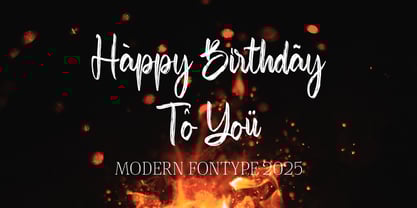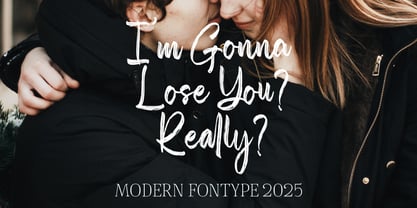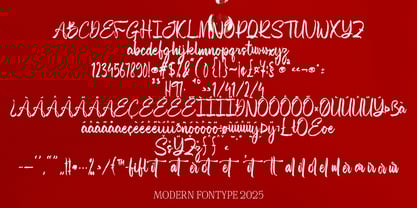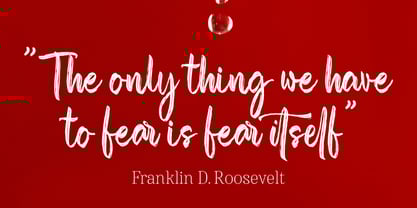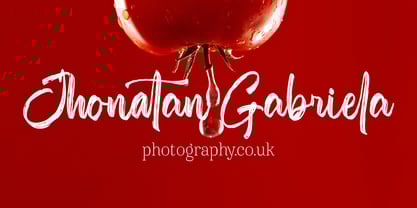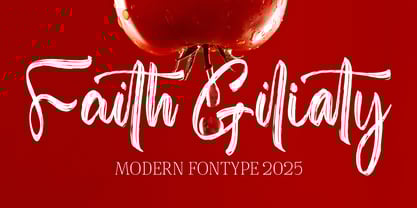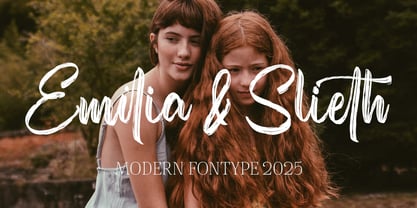
Faith Giliaty
by Naatypo
The Faith Giliaty Font Family was designed by Kurnia Elis Setyorini and published by Naatypo. Faith Giliaty contains 1 styles. More about this family
Faith Giliaty, A new rounded Bold on a script typefaces It generates a lot more fun, more trendy and Beauty. perfect for crafting, branding, Logo, invitation, stationery, wedding designs, social media posts, advertisements, product packaging, product designs, label, Posters, photography, special events, or anything.
Designers: Kurnia Elis Setyorini
Foundry: Naatypo